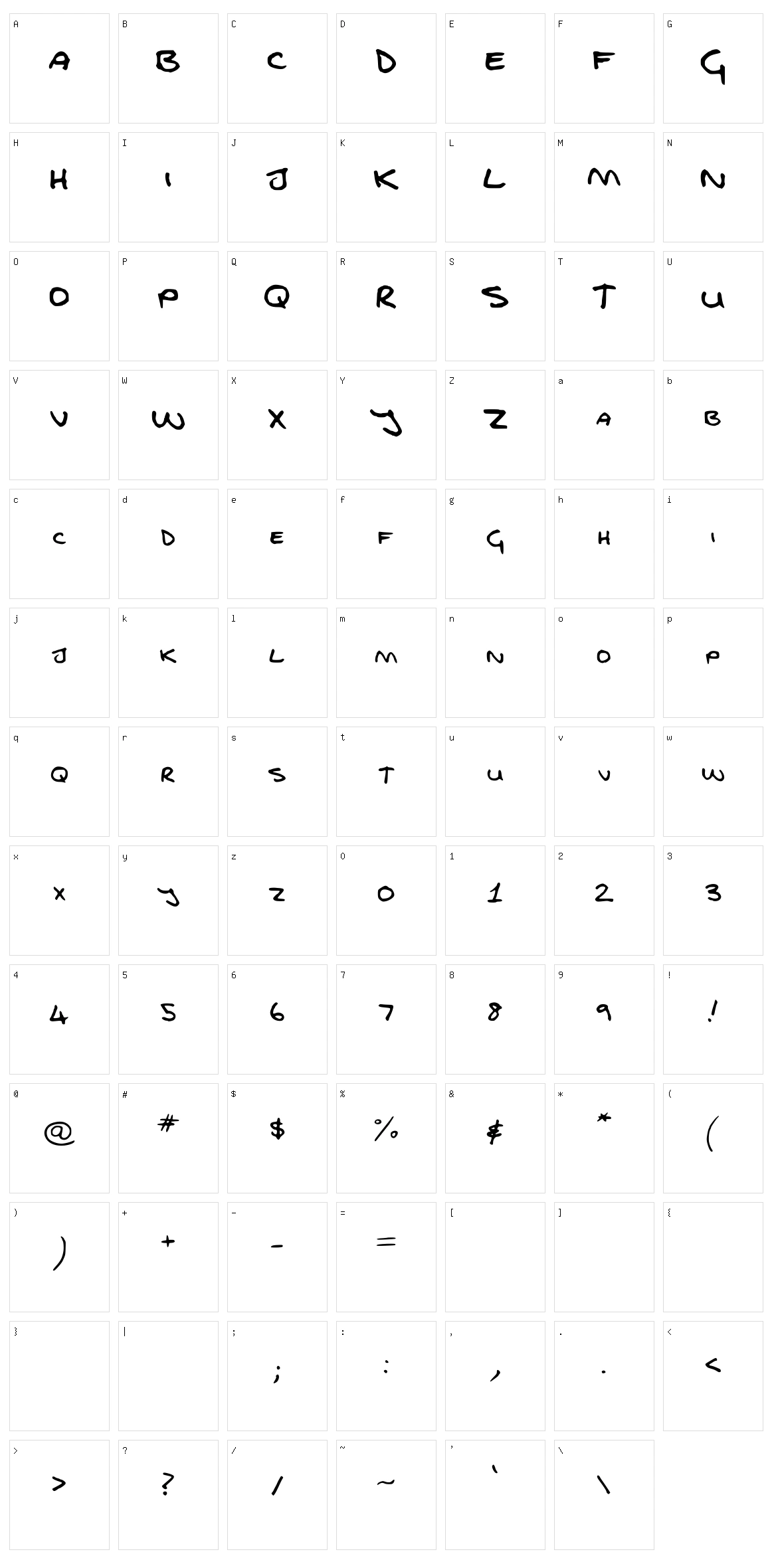
The free font FGfontfull is carefully designed by Stefanie de Kock, showcasing a thoughtful balance of creativity and usability and falls under the Script font style. When you download the ZIP file, it contains only 11.53 KB of font files, making it lightweight and quick to download. Please review the license details below to understand permitted usage and distribution rights. If license information is not available, we recommend using this font for personal projects only or contacting the author directly for commercial usage permissions.